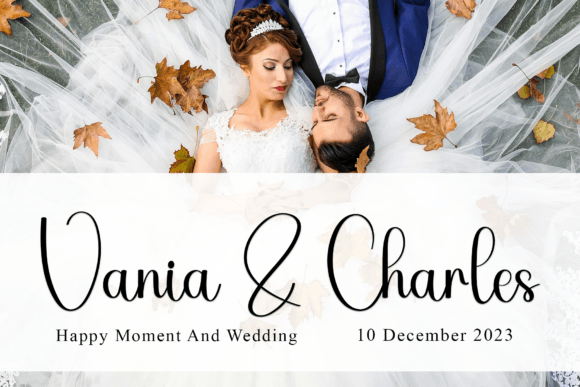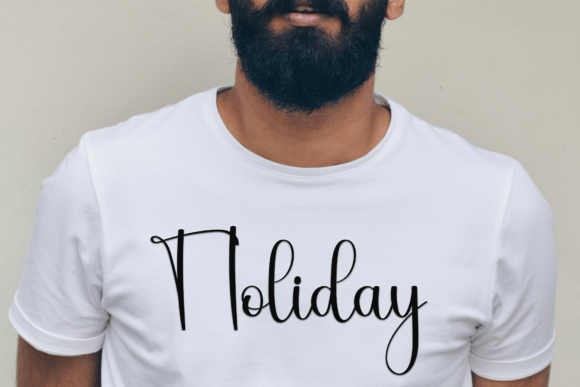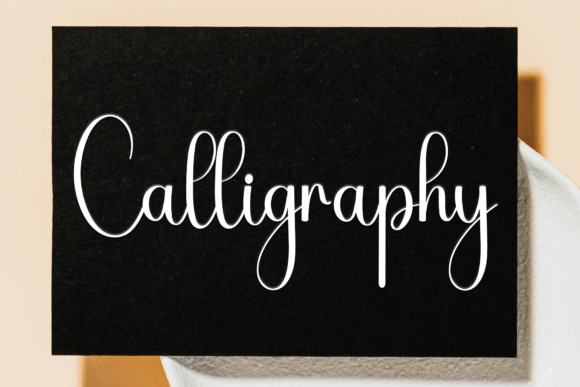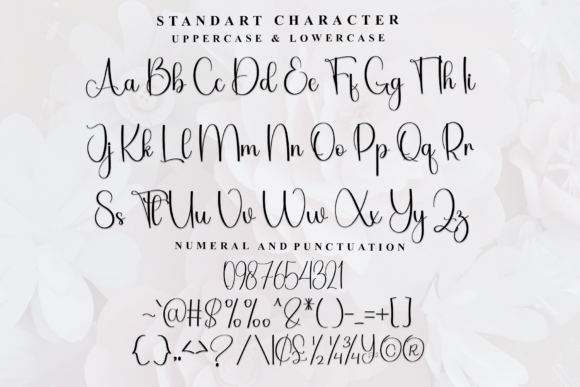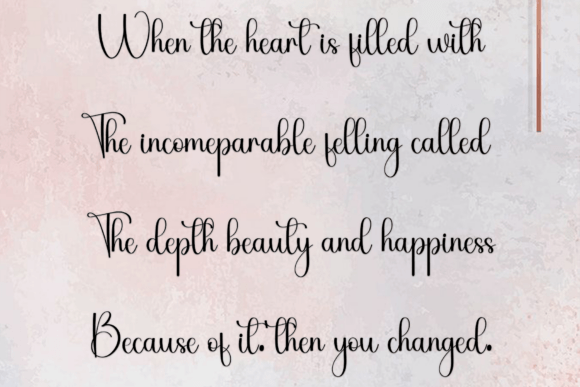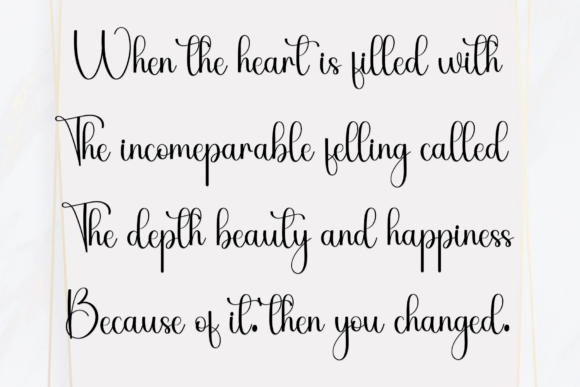
Introducing Brother Calligraphy Font: Elevate Your Designs with Elegance
In the world of typography, calligraphy fonts have always been a favorite among designers and crafters. They add a touch of elegance and sophistication to any project. If you’re looking for a font that embodies these qualities, look no further than the Brother Calligraphy Font. This stylish, beautiful, and elegant font is inspired by timeless classic calligraphy, yet boasts a contemporary atmosphere and impeccable form.
What Makes Brother Calligraphy Font Stand Out?
The Brother Calligraphy Font is designed to enhance the beauty of your projects. Its balanced and varied design ensures that it can be used in a wide range of applications, from digital designs to print materials. Whether you’re working on a logo, a poster, a wedding invitation, or a craft project, this font is sure to impress.
One of the key features of the Brother Calligraphy Font is its PUA (Private Use Area) encoding. This means that you can access all of the amazing glyphs and ligatures with ease. PUA encoding allows designers to access a wide range of characters and symbols that are not available in standard fonts. This feature makes the Brother Calligraphy Font incredibly versatile and user-friendly.
The Inspiration Behind Brother Calligraphy Font
The Brother Calligraphy Font is inspired by classic calligraphy, which has been a cornerstone of elegant design for centuries. Calligraphy is an art form that requires great skill and patience. The best calligraphy fonts capture the essence of this art form, while also being legible and easy to read.
The creators of the Brother Calligraphy Font have done an excellent job of capturing the essence of classic calligraphy, while also infusing it with a modern twist. The result is a font that feels both timeless and contemporary.
Features of Brother Calligraphy Font
- PUA Encoded: Access all of the amazing glyphs and ligatures with ease.
- Balanced and Varied: Designed to enhance the beauty of your projects.
- Elegant and Sophisticated: Perfect for a wide range of applications, from digital designs to print materials.
- Contemporary Atmosphere: A modern twist on classic calligraphy.
- Impeccable Form: A well-crafted font that is both legible and beautiful.
Use Cases for Brother Calligraphy Font
The Brother Calligraphy Font is incredibly versatile and can be used in a wide range of applications. Here are a few examples:
- Wedding Invitations: Add a touch of elegance to your wedding invitations with the Brother Calligraphy Font.
- Logos: Create a sophisticated logo for your business or brand.
- Posters: Design eye-catching posters for events, promotions, or advertising campaigns.
- Craft Projects: Add a personal touch to your craft projects, such as handmade cards or scrapbooking.
- Digital Designs: Use the Brother Calligraphy Font in digital designs, such as social media graphics or website headers.
The Brother Calligraphy Font is a stylish, beautiful, and elegant font that is sure to elevate your designs. Its balanced and varied design, combined with its PUA encoding, make it an excellent choice for designers and crafters. Whether you’re working on a digital design or a print project, this font is sure to impress.
With its timeless classic calligraphy inspiration and contemporary atmosphere, the Brother Calligraphy Font is a versatile font that can be used in a wide range of applications. So why settle for a ordinary font when you can add a touch of elegance to your projects with the Brother Calligraphy Font?